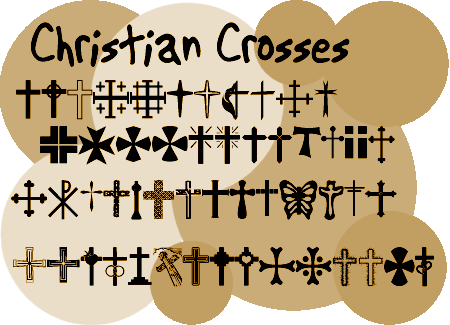
When I was studying in Rome, I got to see a wide variety of them. I tried to capture some of those here. A Cross to me symbolizes when Jesus gave his life for us. Please only use in a way that would glorify our Lord.